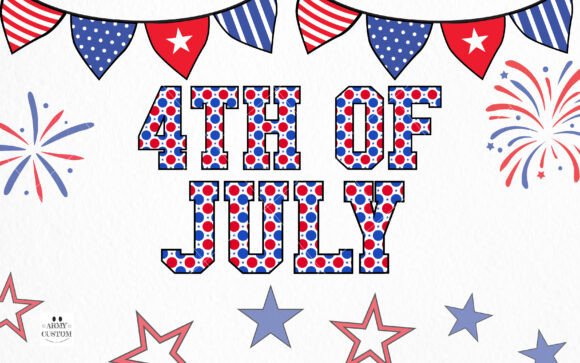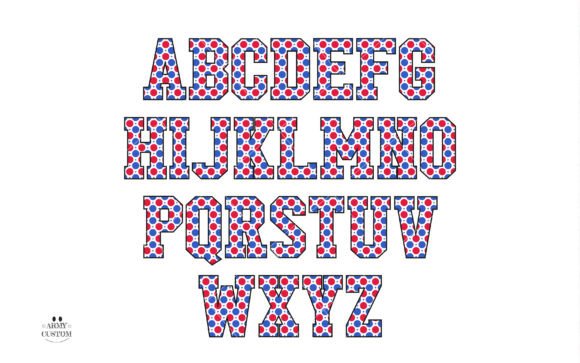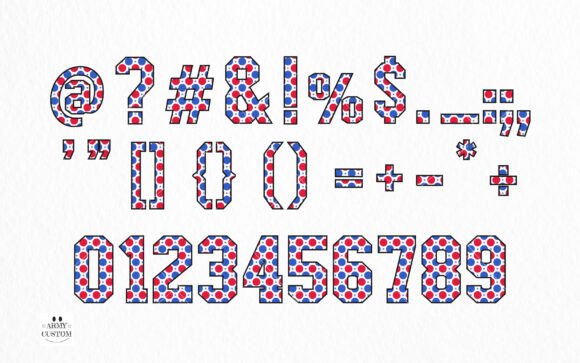
Introducing the American 4th of July Font: A Patriotic Celebration in Typography
As the United States prepares to celebrate its Independence Day on the 4th of July, designers and crafters are on the lookout for creative elements that can add a touch of patriotism to their projects. If you’re searching for a font that embodies the spirit of American celebrations, look no further than the American 4th of July Font. This stunning font is designed to capture the essence of Memorial Day Americana and is perfect for infusing your creative projects with a sense of national pride.
A Font that Embodies American Aesthetics
The American 4th of July Font is more than just a typography design – it’s a tribute to the Land of the Free. Inspired by the heart of the United States, this font uniquely blends traditional and modern elements to create a distinctive American aesthetic. Every curve and line is carefully crafted to evoke the charm and spirit of American culture, making it an ideal choice for designers and crafters who want to add a touch of patriotism to their work.
Key Features of the American 4th of July Font
- Patriotic Design: The American 4th of July Font is designed to capture the essence of American celebrations, making it perfect for Independence Day, Memorial Day, and other patriotic events.
- Unique Style: This font boasts a unique style that blends traditional and modern elements, creating a distinctive American aesthetic.
Using the American 4th of July Font in Your Projects
The American 4th of July Font is a versatile design element that can be used in a wide range of creative projects, from DIY crafts to professional design work. Here are some ideas for using this font:
- Patriotic Crafts: Use the American 4th of July Font to create custom signs, banners, and decorations for Independence Day and other patriotic events.
- Digital Designs: Incorporate the font into your digital designs, such as social media graphics, blog posts, and website headers, to add a touch of patriotism.
- Paper Crafts: Use the font to create custom cards, invitations, and other paper crafts for patriotic occasions.
Tips for Working with the American 4th of July Font
To get the most out of the American 4th of July Font, here are some tips for working with this design element:
- Experiment with Colors: Try out different colors and combinations to find the perfect look for your project.
- Pair with Other Design Elements: Pair the American 4th of July Font with other design elements, such as images and graphics, to create a unique and eye-catching design.